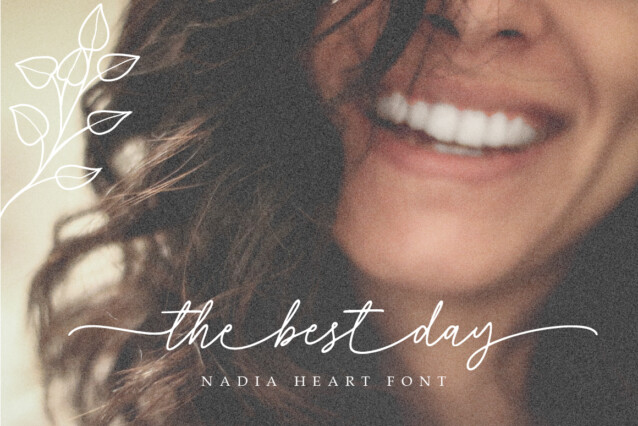
Nadia Heart Font
Nadia Heart Font is a lovely handwritten script font that emanates elegance. It has enthralling tails at the beginning and conclusion of each stroke and captivating letter alternatives.